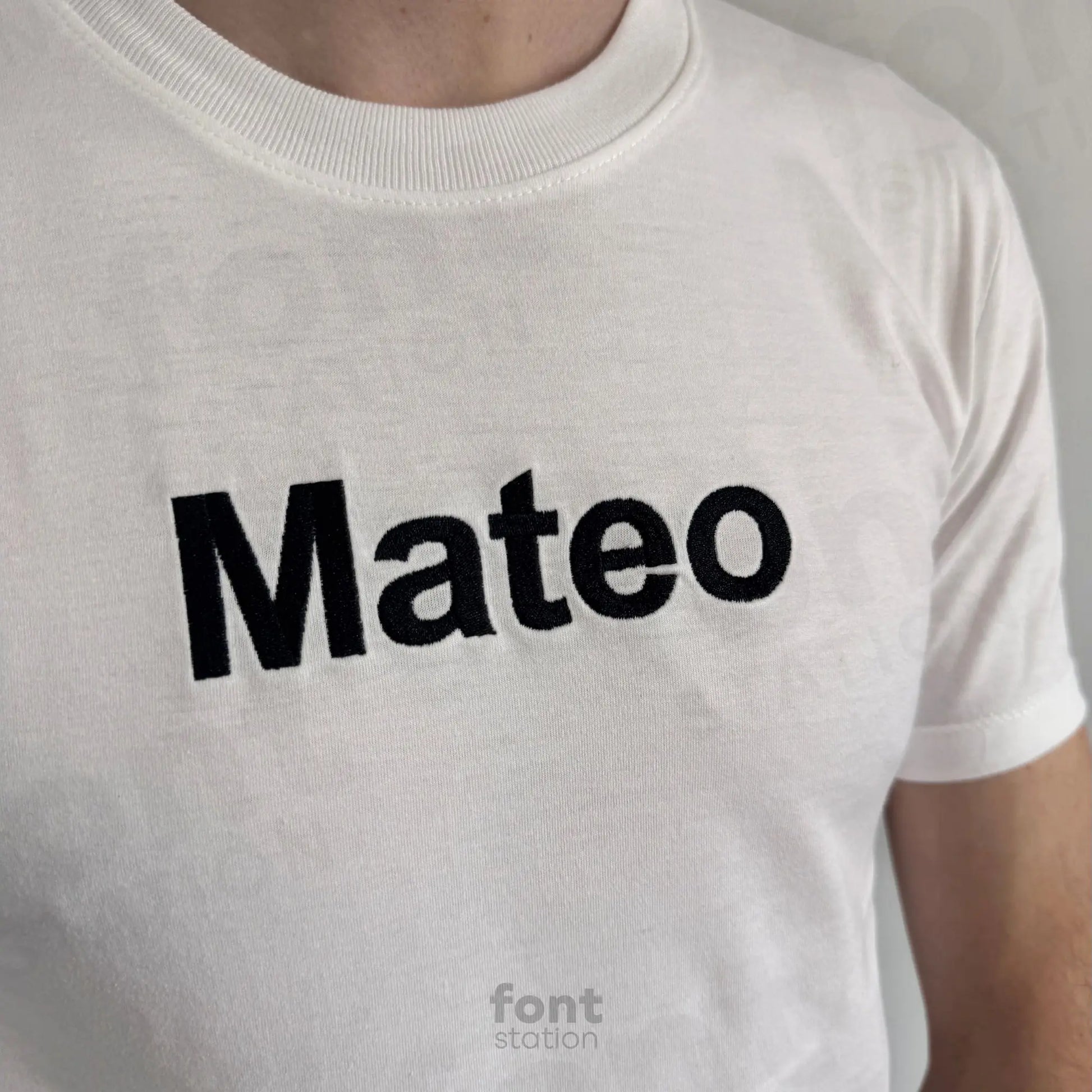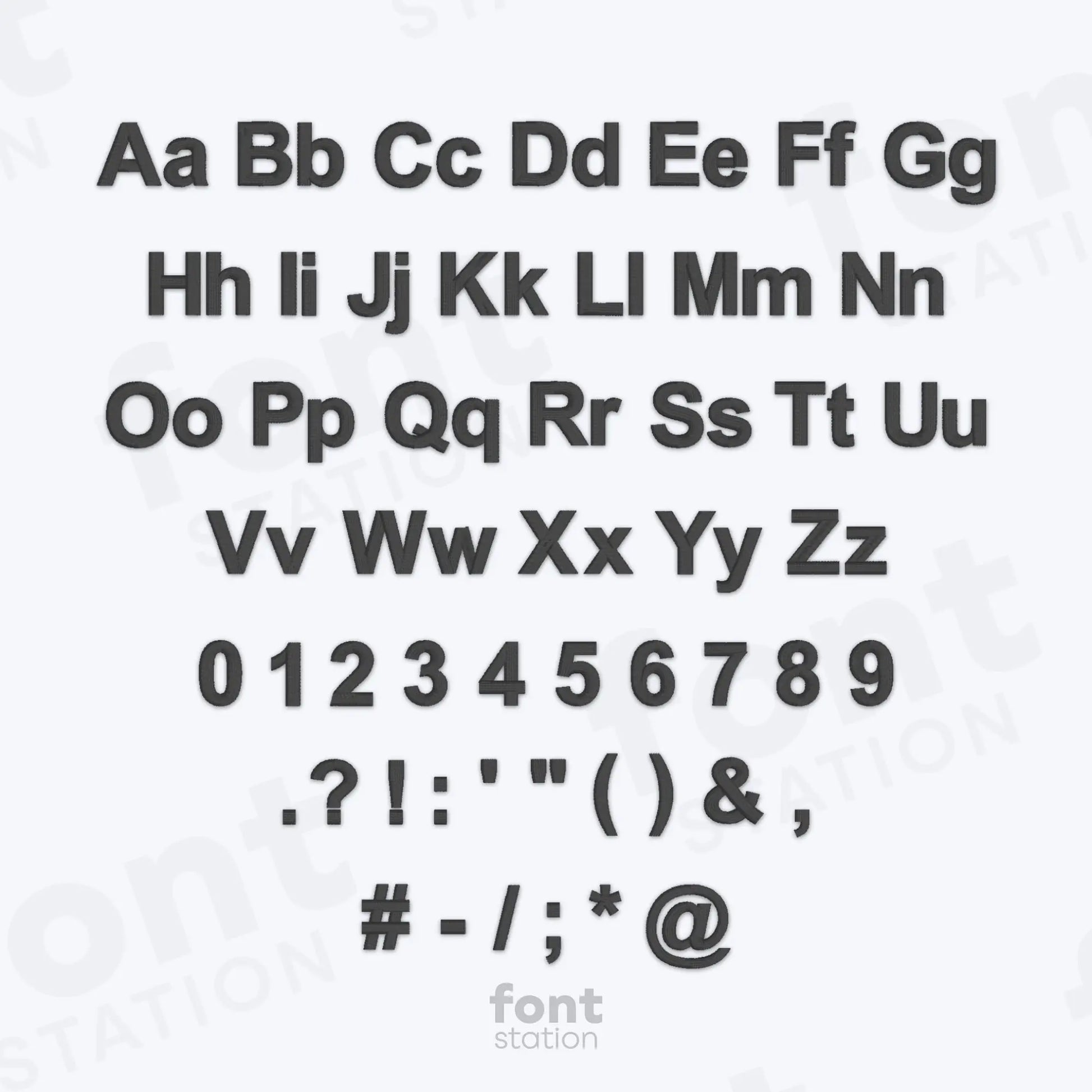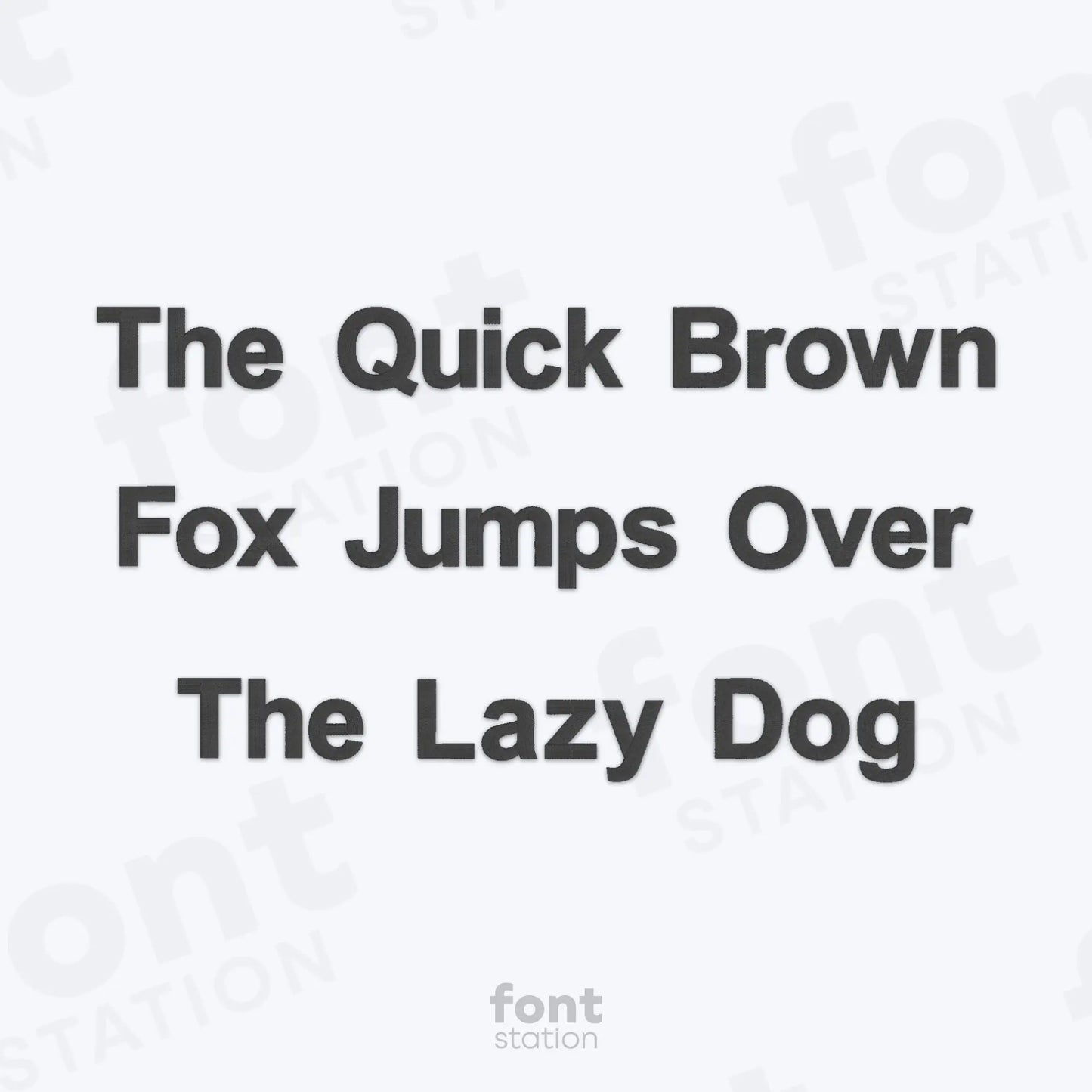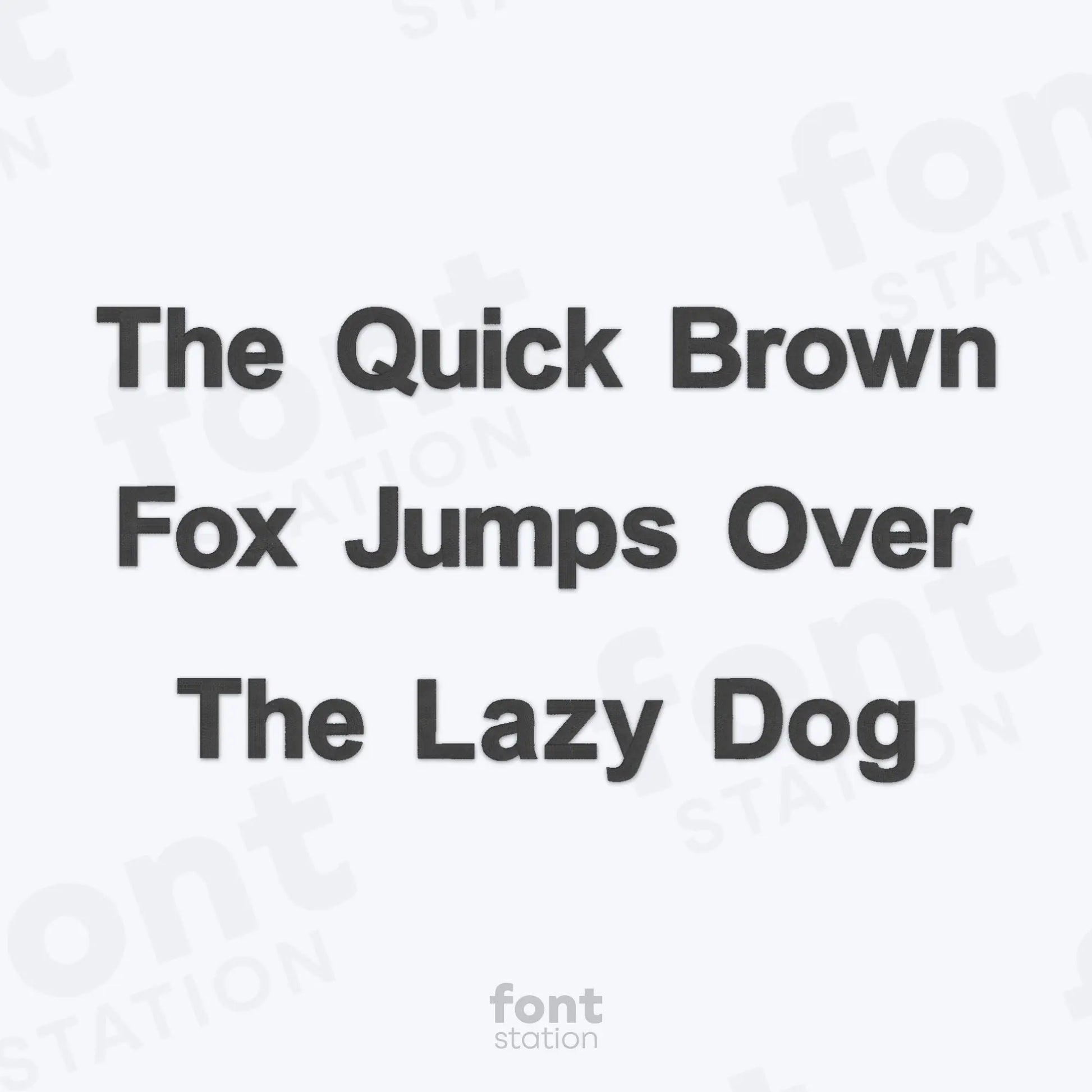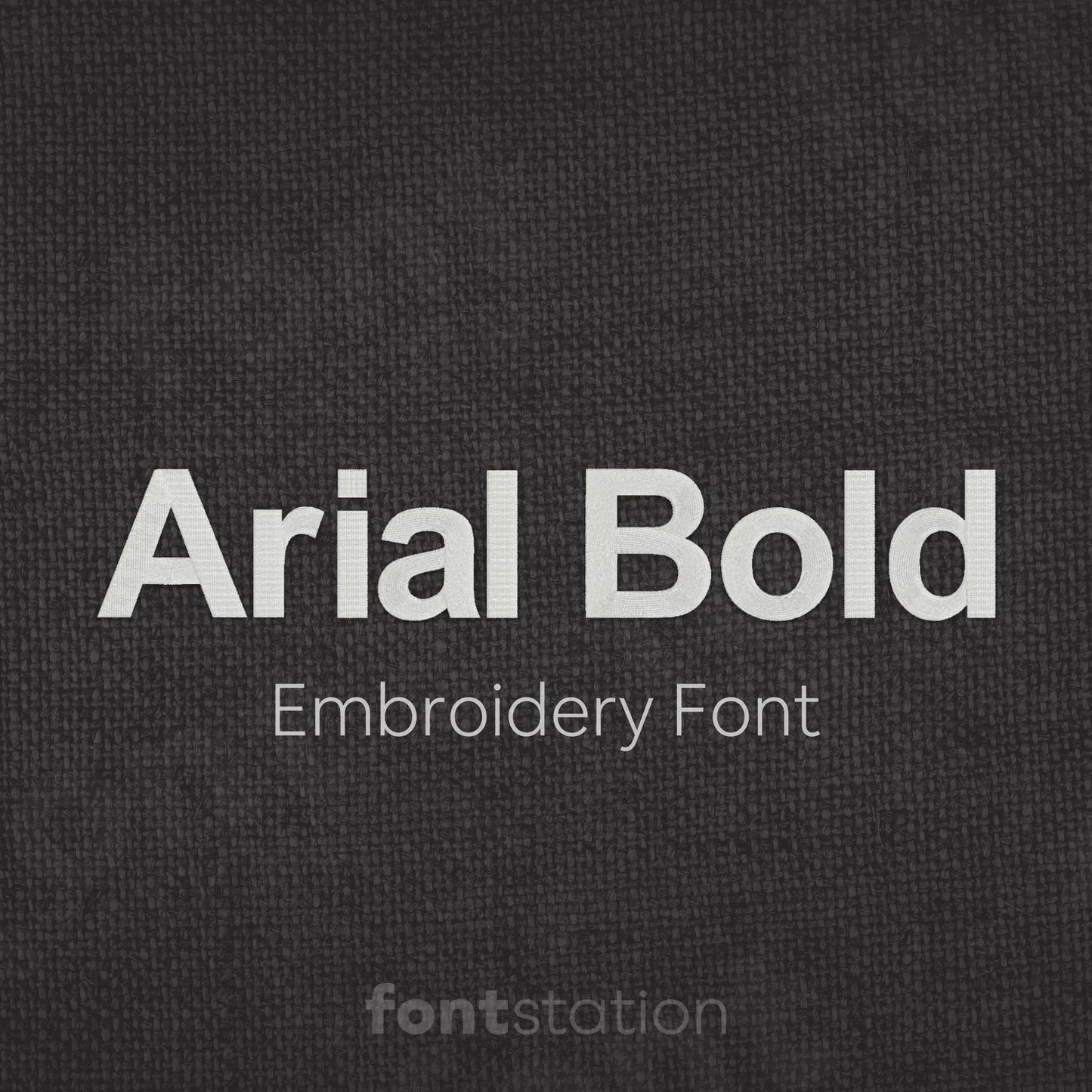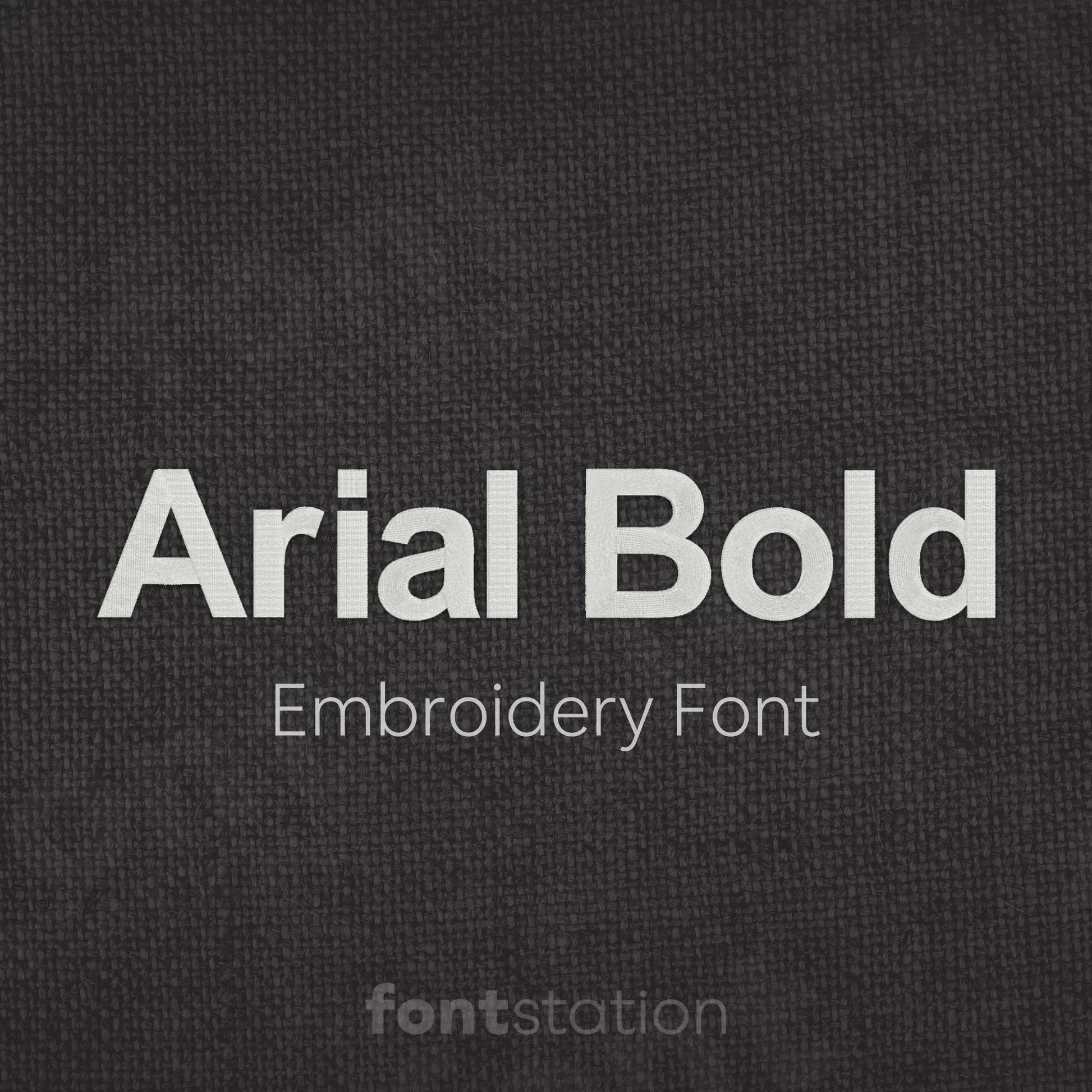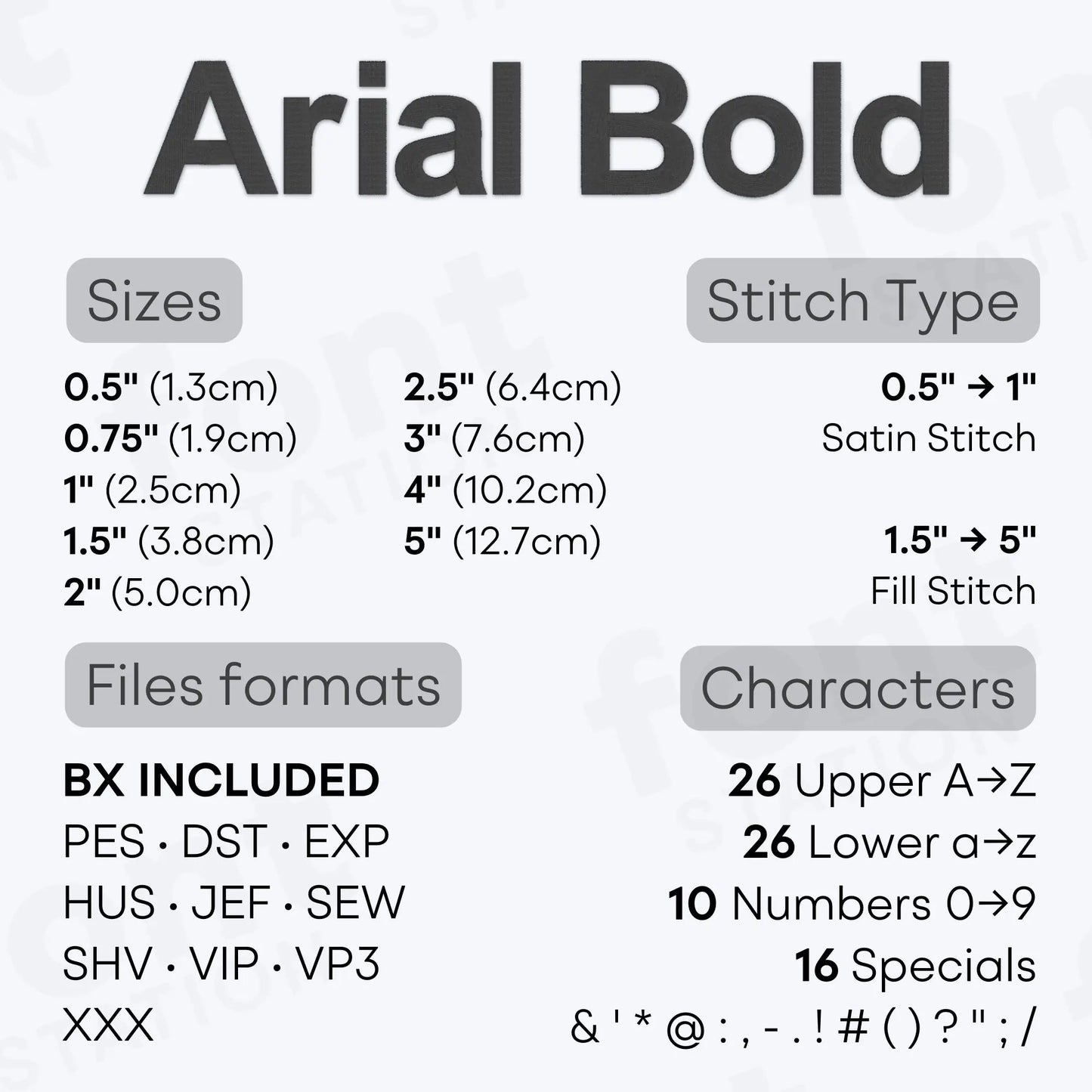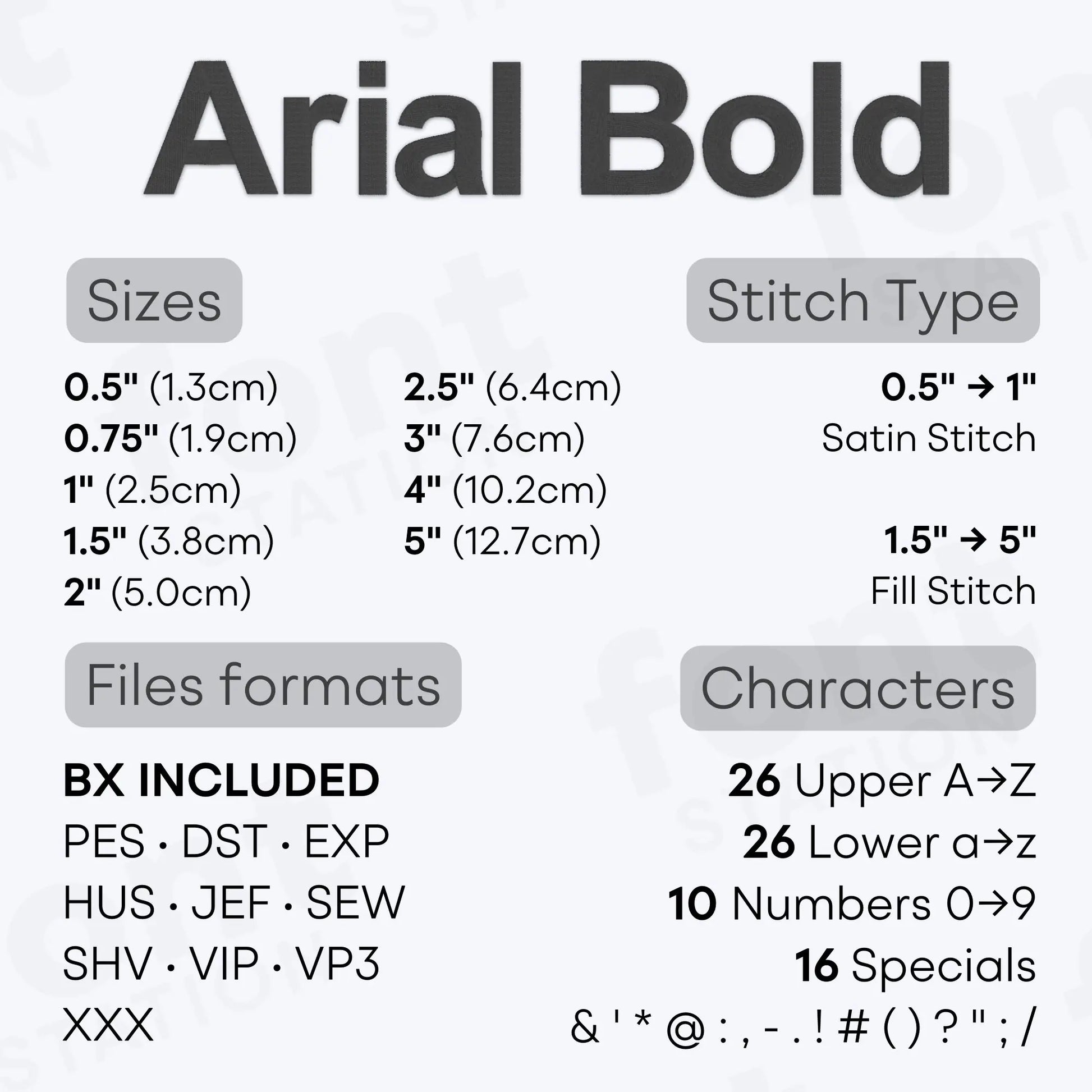
Arial Bold Embroidery Font
Introducing our Arial Bold embroidery font, a modern sans serif alphabet with thick block letters that stitch cleanly on your embroidery machine. Perfect for bold designs and any standout project.
About the Arial Bold Embroidery Font
Satin Stitch: 0.5", 0.75" y 1"
Fill Stitch: 1.5", 2", 2.5", 3", 4" y 5"
Characters: 26 uppercase, 26 lowercase, 10 numbers y symbols & ' * @ : , - . ! # ( ) ? " ; /
Our Arial Bold embroidery font brings a thick, modern block style to your embroidery projects.
This powerful machine embroidery font features a clean sans serif alphabet with bold, thick letters designed for maximum readability and impact. Perfect for names, logos, uniforms, labels, and modern embroidery designs, it delivers a strong, professional look on any project.